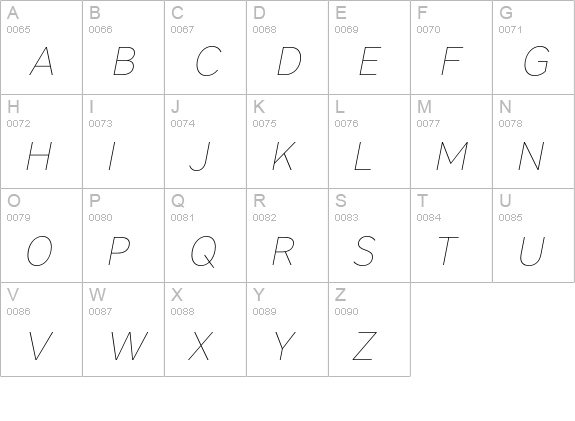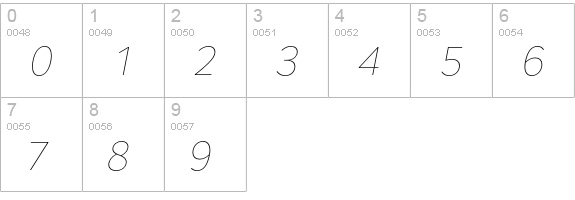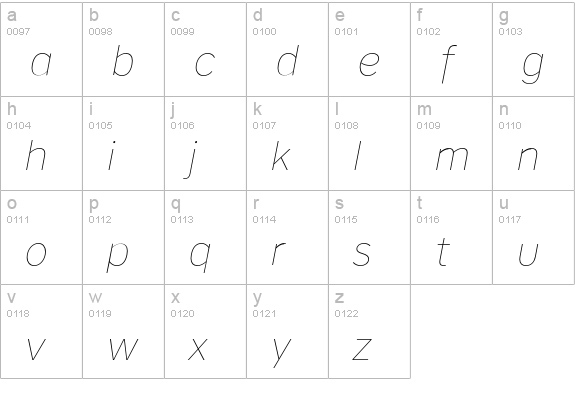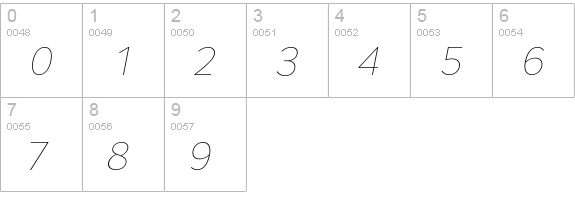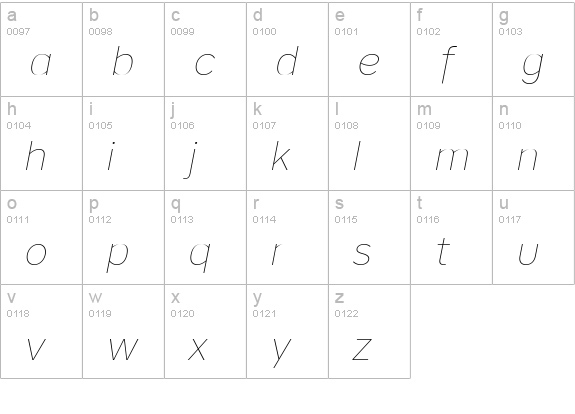
Core Sans A 15 Thin Italic Font Details
Core Sans A 15 Thin Italic is a delicate, low-contrast, italic variant in the Core typeface family \xE2\x80\x94 well suited to fashion editorial, minimal branding, and high-contrast display.
Core Sans A 15 Thin Italic font is a sleek and modern typeface that exudes elegance and sophistication. With its delicate weight and stylish italics, this font is perfect for adding a touch of refinement to your designs. The slender letterforms and subtle slant create a sense of movement and grace, making Core Sans A 15 Thin Italic a versatile choice for a variety of projects. Best of all, Core Sans A 15 Thin Italic font is available for free download at FontsMarket.com. Whether you're working on a branding project, a website design, or any other creative endeavor, this font is sure to elevate your work with its understated beauty and timeless appeal. Don't miss out on the opportunity to enhance your designs with this elegant typeface – download Core Sans A 15 Thin Italic today!